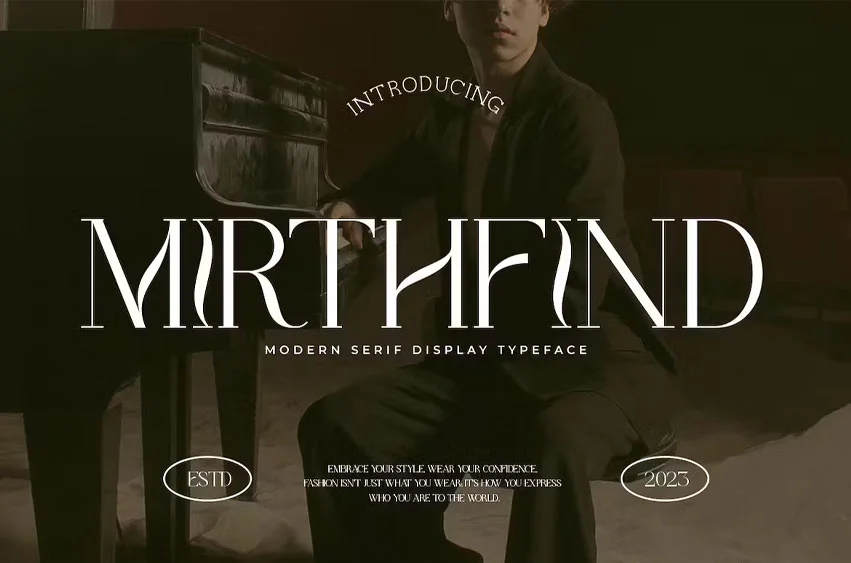
Mirthfind Font is a Classy serif typeface Unique alternate , multilingual support with perfect kerning. This typeface is perfect for an elegant & luxury logo , classy editorial design, women’s magazine, fashion brand , cosmetic brand, fashion promotion , modern advertising design, invitation card, art quote, home decoration , book/cover titles, special events, and much more. This elegant font needs to be in your collection and is perfect for your next luxury design project.
Mirthfind Features:
- Uppercase & Lowercase
- Alternates & Ligatures
- Numerals & Punctuation
- Accented characters
- Multilingual Support